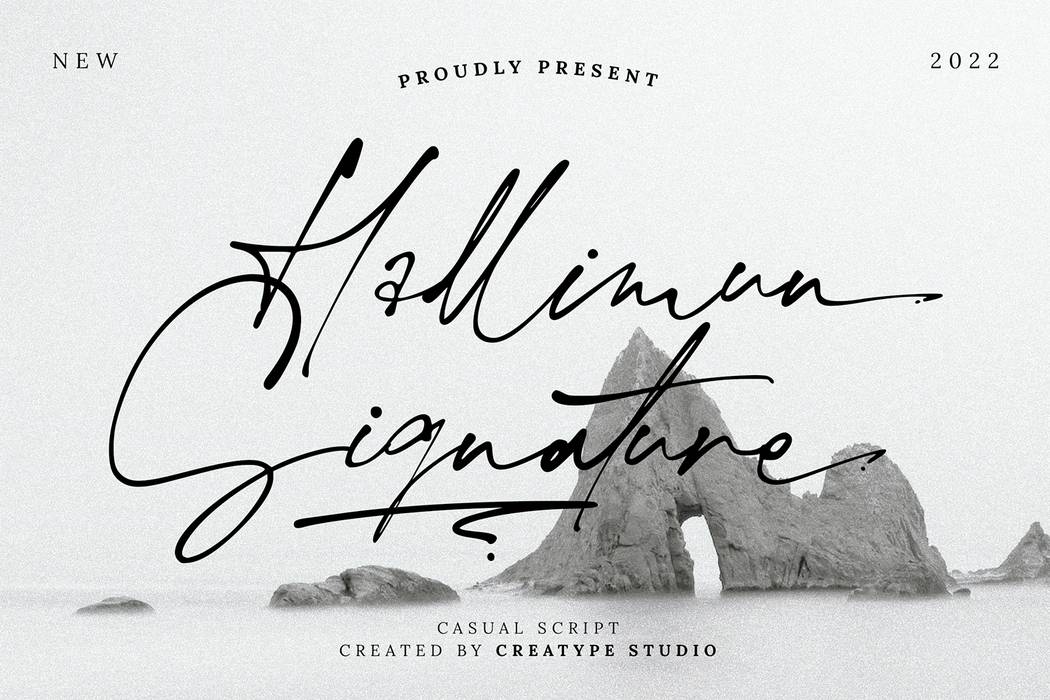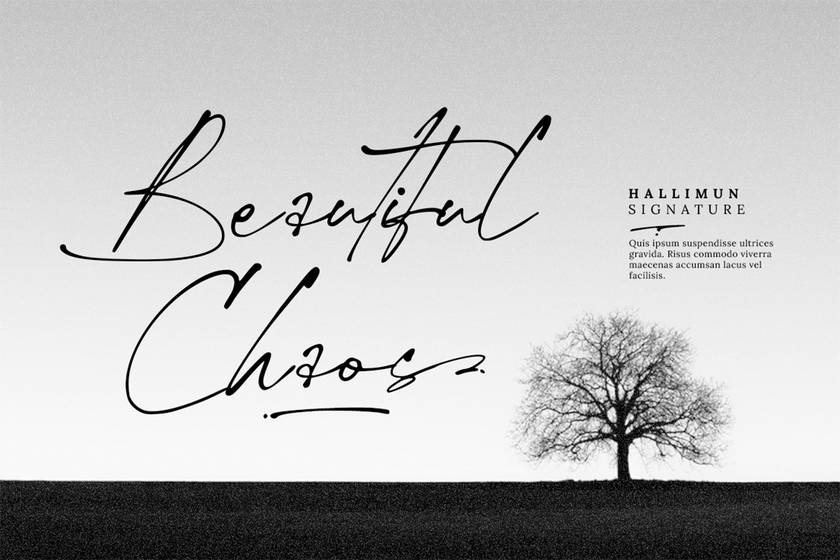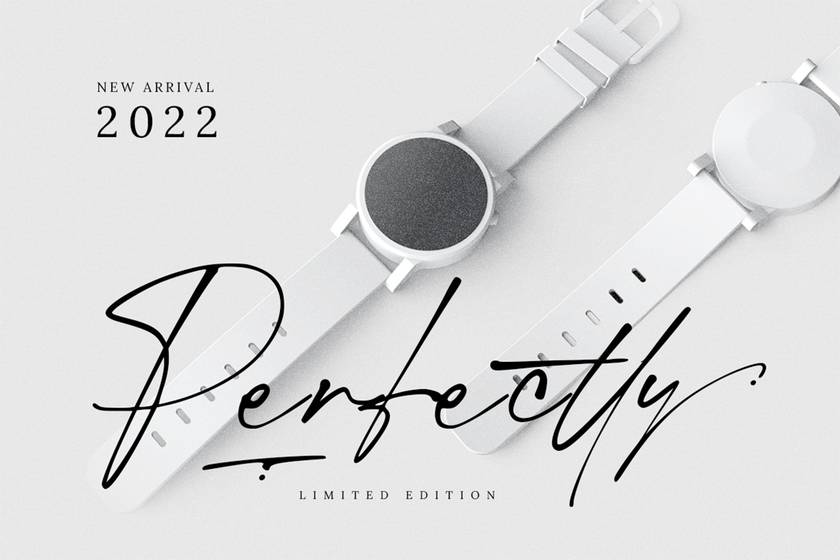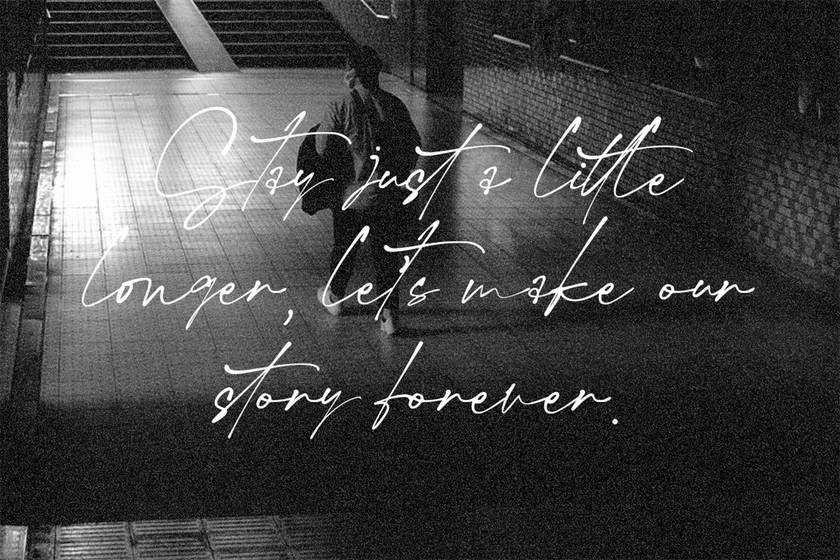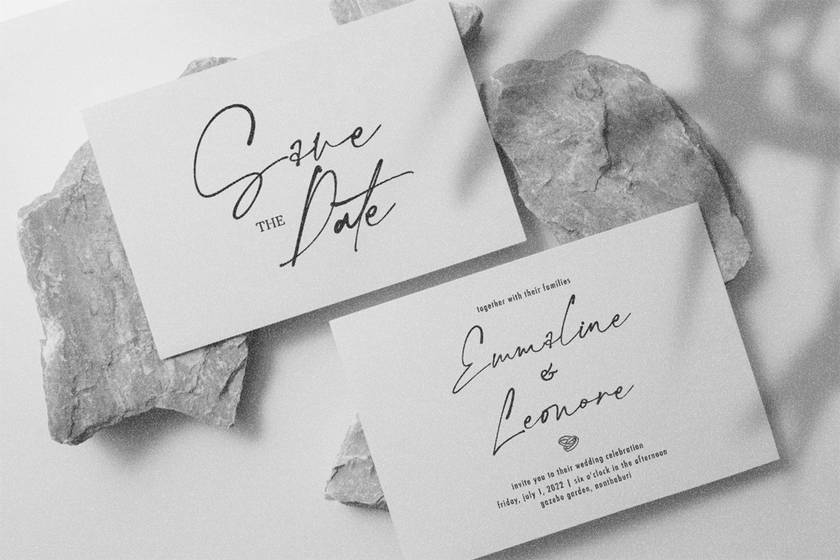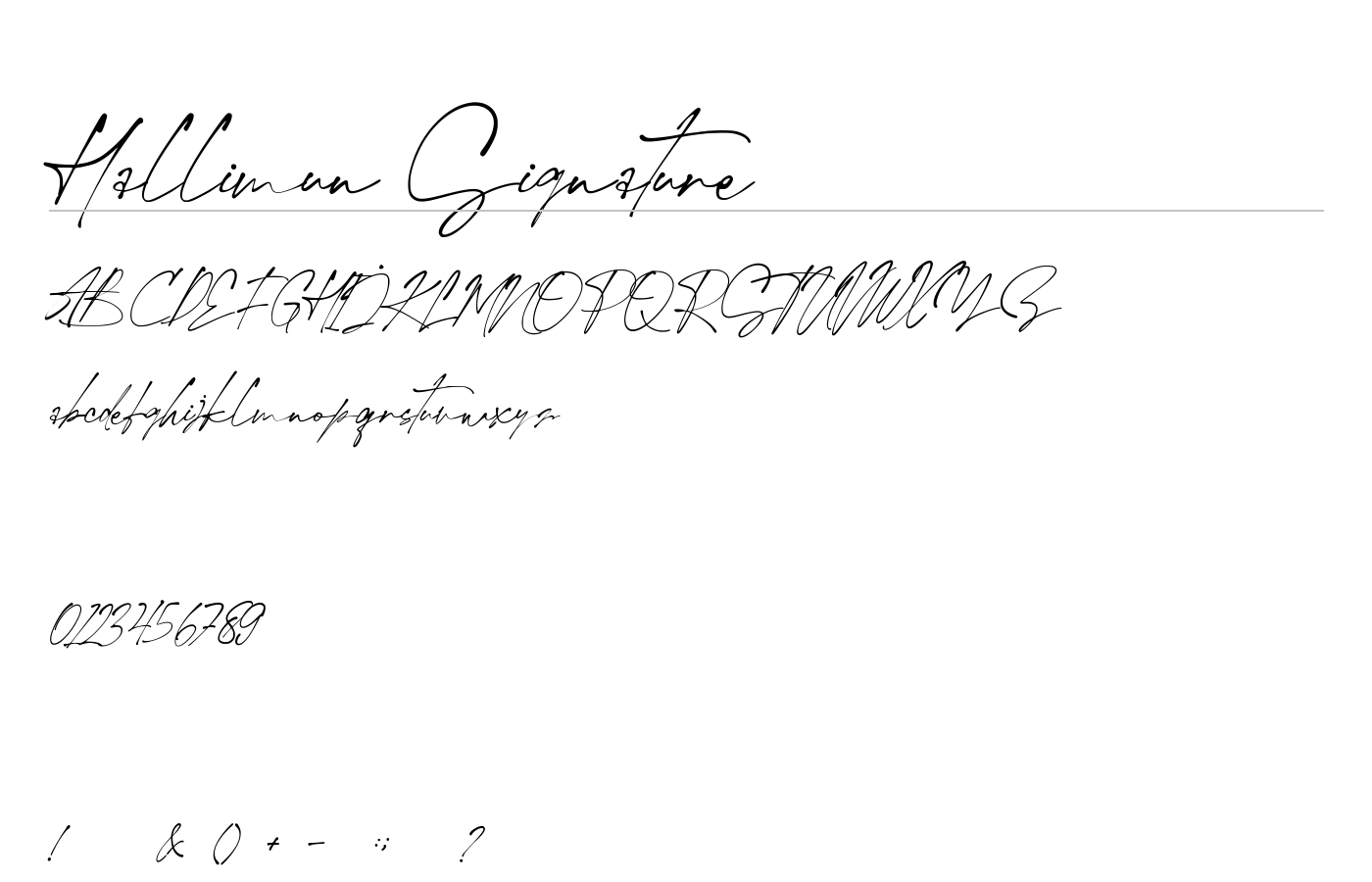
Hallimun Signature Font is a delicate, elegant script that mimics sophisticated natural handwriting with thin, fluid strokes and graceful letterforms. Its lightweight, airy style makes it perfect for luxury branding, wedding invitations, and artistic logos, adding a personal and stylish touch. This font shines best in headline use where its refined character can truly stand out and convey charm and exclusivity.
Hallimun Signature Font
About Hallimun Signature Font